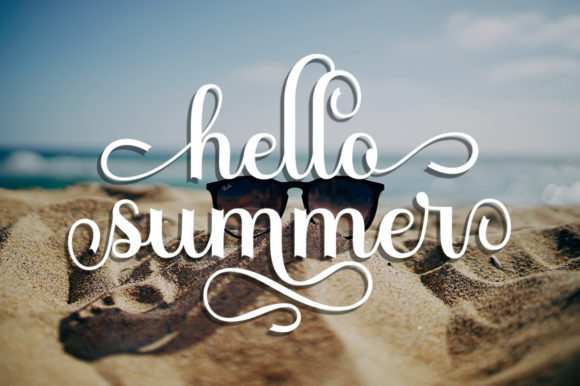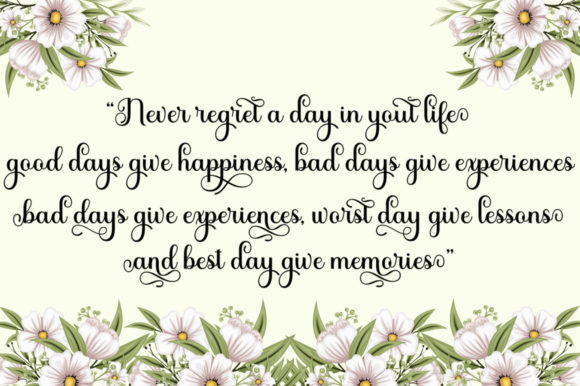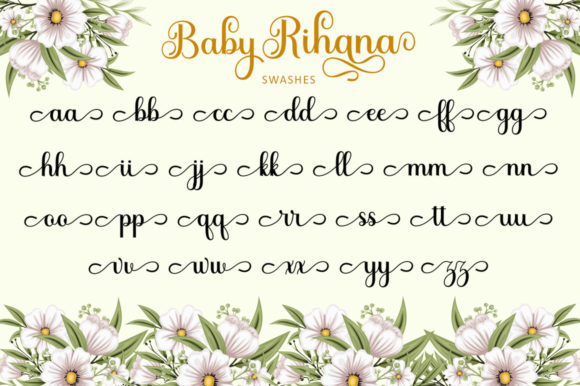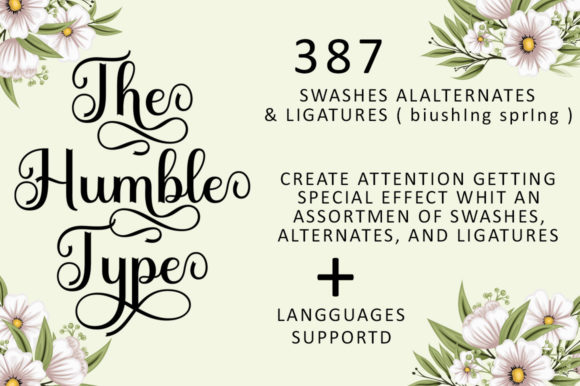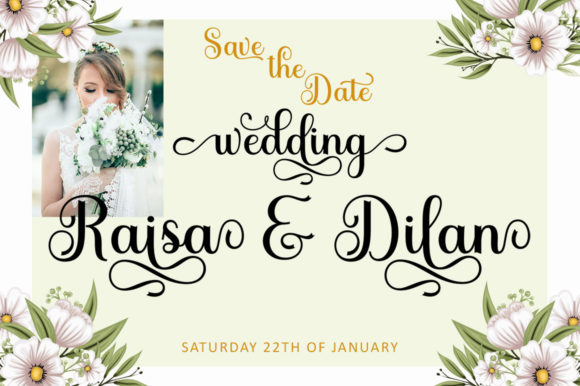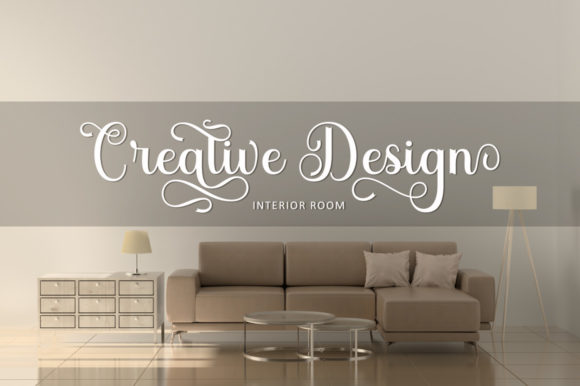
The Perfect Blend of Whimsy and Elegance: Uncovering the Baby Rihana Font
Have you ever been browsing through a quaint coffee shop, sipping on a latte, and stumbled upon a beautifully crafted invitation that caught your eye? The delicate script, the subtle curves, and the effortless charm all combined to leave you feeling inspired. It’s moments like these that remind us of the power of typography in design.
Enter the Baby Rihana Font, a smooth, elegant, and delicate handwritten font that embodies the essence of such creative moments. This versatile font is designed to fit seamlessly into a wide range of designs, from wedding invitations to children’s books. With its well-balanced characters and PUA encoding, accessing all the glyphs and swashes is a breeze, making it a valuable addition to any designer’s toolkit.
Baby Rihana Font Key Features
- Unique Characteristics: This font features a playful, cursive design with a modern twist, making it perfect for creative projects.
Designer Review: Baby Rihana Font
I have to say, I was a bit skeptical about the “Baby Rihana Font” at first, but after taking a closer look, I was surprised by some of its charms. ✨ Here are a few things that I think work well:
- The font’s playful and cursive design makes it perfect for creating a whimsical and childlike feel in your designs.
- The font is highly customizable, with a wide range of options for adjusting size, color, and style.
- The font includes a variety of ligatures and swashes, which can add a touch of elegance and sophistication to your designs.
However, there are a few limitations to consider: ⚠️
- The font may not be suitable for formal or professional designs, as its playful and childlike feel may come across as immature.
- The font may not be as legible at smaller sizes, which could make it difficult to read in certain contexts.
- The font’s customization options can be overwhelming, especially for those who are not familiar with font design.
Overall, I think the “Baby Rihana Font” is a fun and creative option for designers who want to add a touch of whimsy to their projects. While it may have some limitations, I think it’s definitely worth considering for the right type of design.
Tips for Getting the Most Out of Baby Rihana Font
For the best results, use Baby Rihana Font in bold or italic styles to add emphasis to your text.
Experiment with different font sizes and colors to create a unique and eye-catching design.
Use Baby Rihana Font in conjunction with other fonts to create a visually appealing and balanced design.
Baby Rihana Font is perfect for creating playful